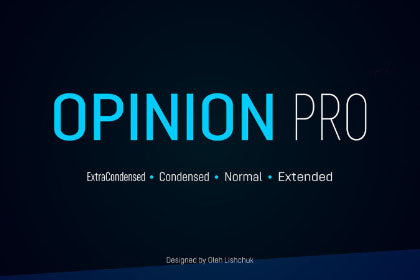
Featuring a free opinion pro typeface demo. Free Design Resources has created this amazing and beautiful free typeface. Easily amaze your audience with this fancy font and make your graphic designs pop up from the crowd.